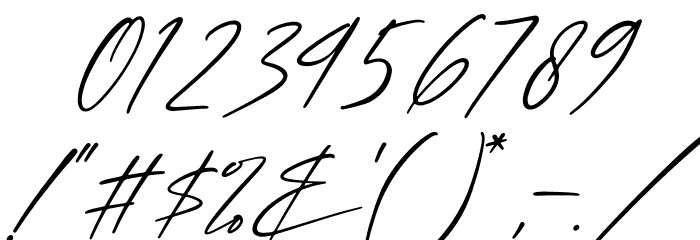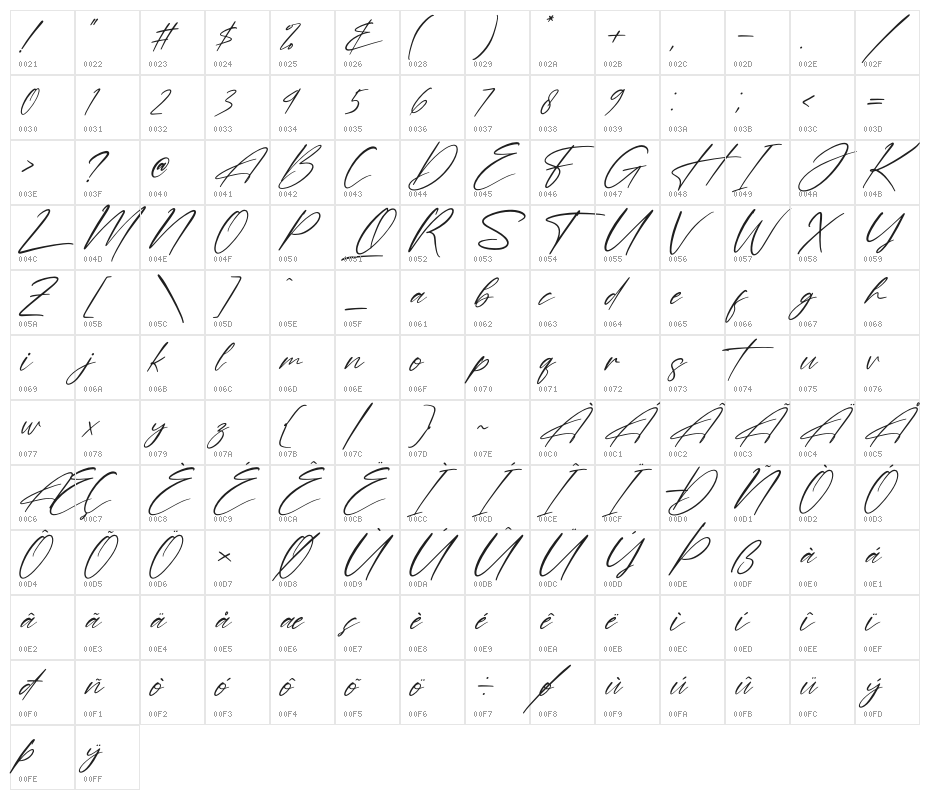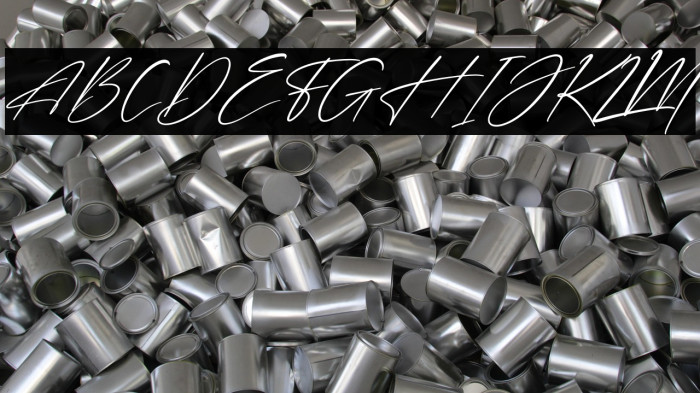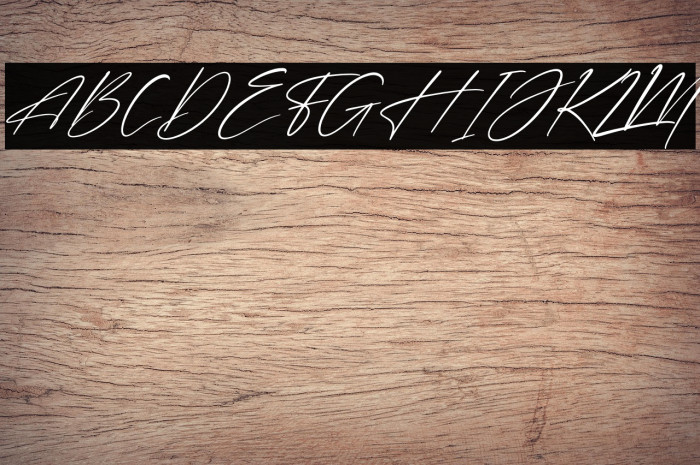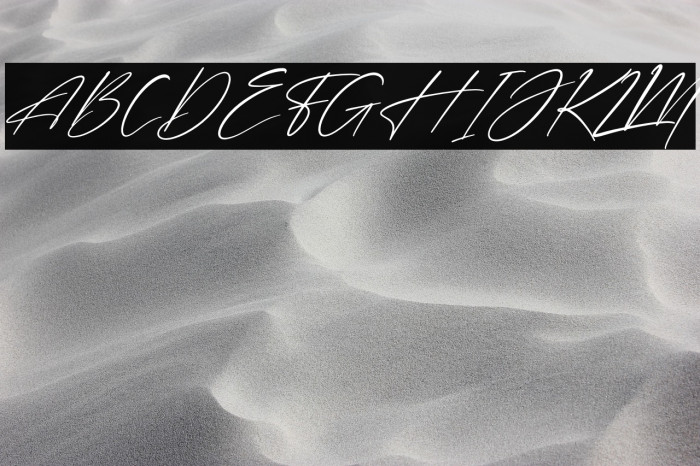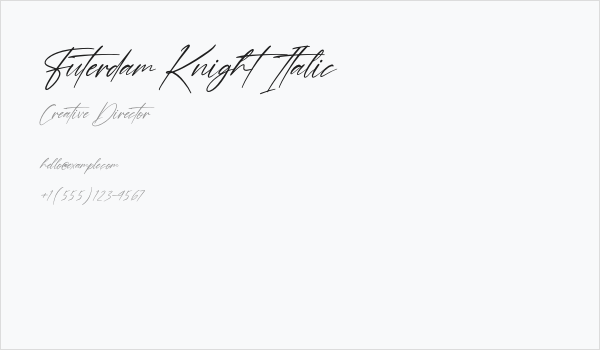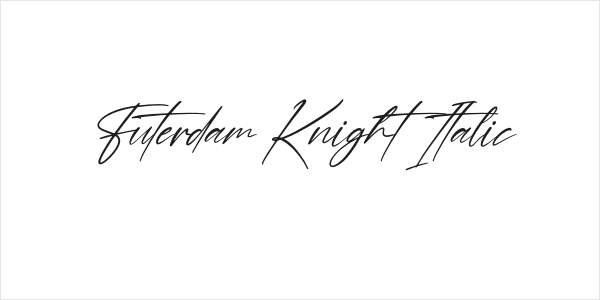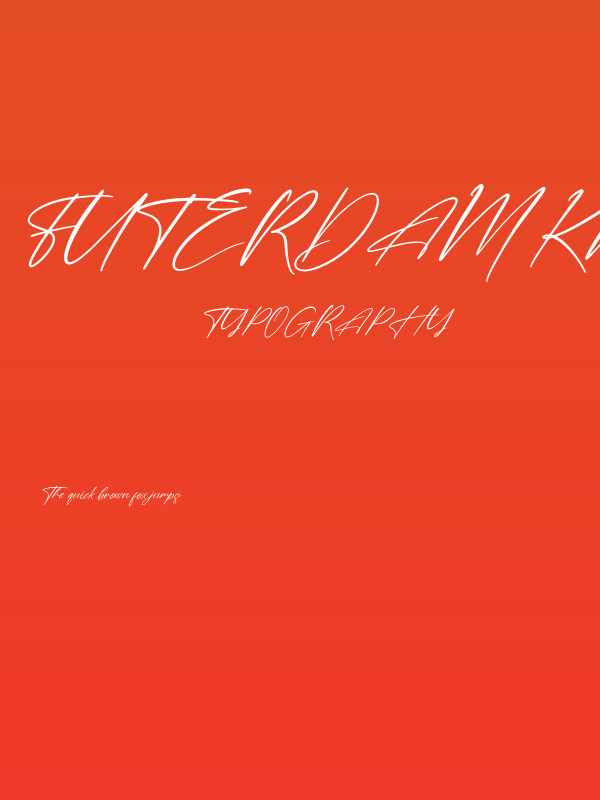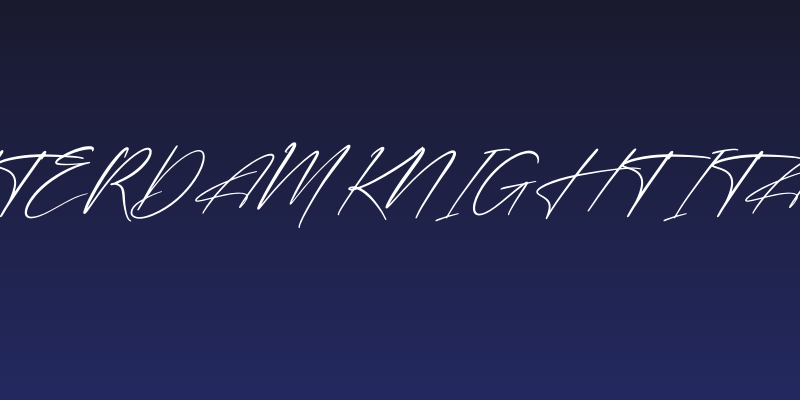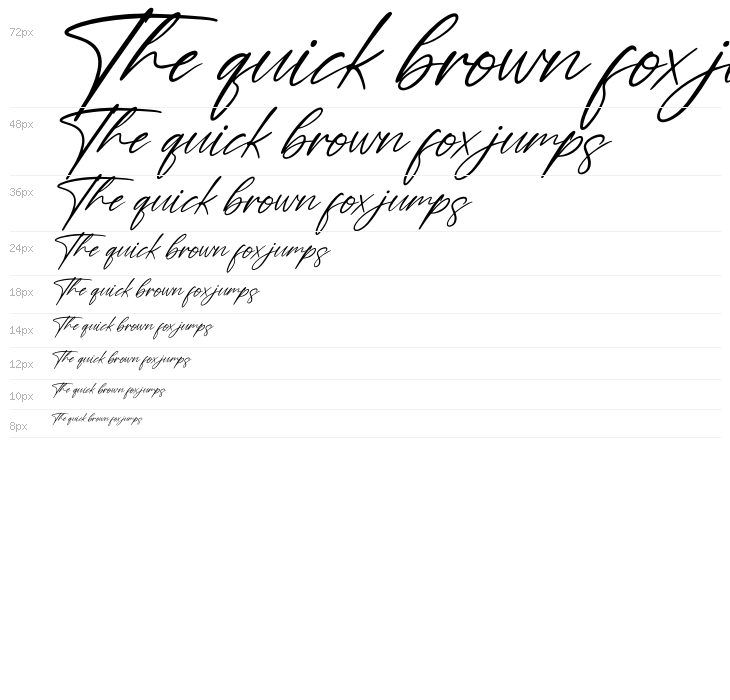
Futerdam Knight Italic Font
Futerdam Knight Italic Description
This font features a dynamic and fluid script style, characterized by its elegant, flowing lines and cursive letterforms. The uppercase letters are tall and slightly slanted, giving a sense of movement and grace. The lowercase letters maintain a consistent slant, with some characters featuring unique loops and flourishes that add a touch of sophistication. The numerals are designed to complement the letters, with a similar slant and fluidity. Special characters are included, maintaining the overall style and ensuring versatility in usage. The font's italic nature enhances its expressive quality, making it suitable for creative and artistic projects.
| Overall Style | Elegant, Artistic |
| Proposed Projects | Ideal for wedding invitations, greeting cards, branding, and logo design where a touch of elegance and sophistication is desired. |